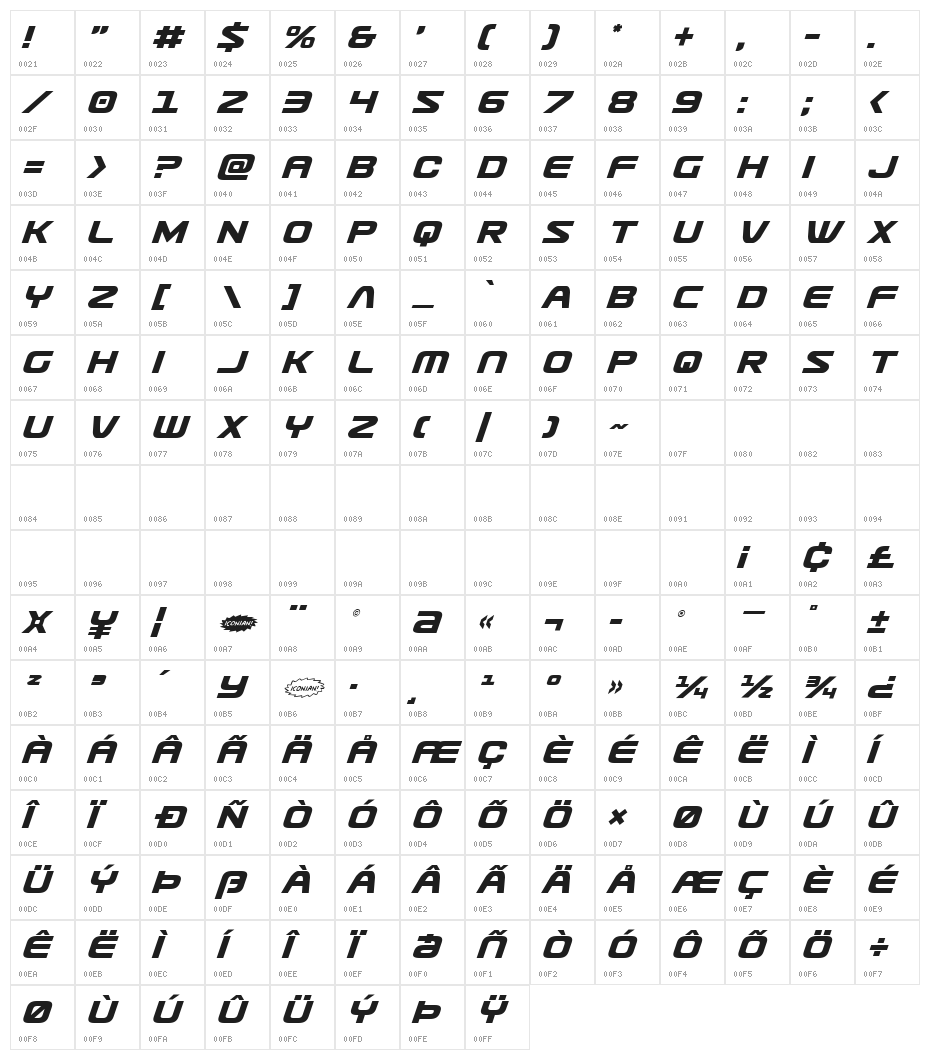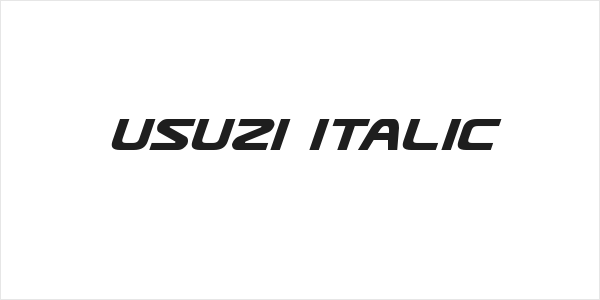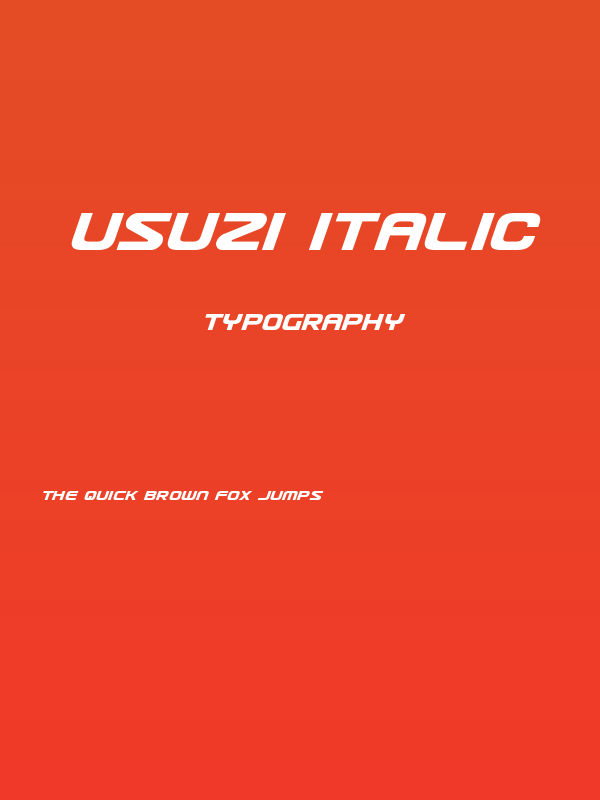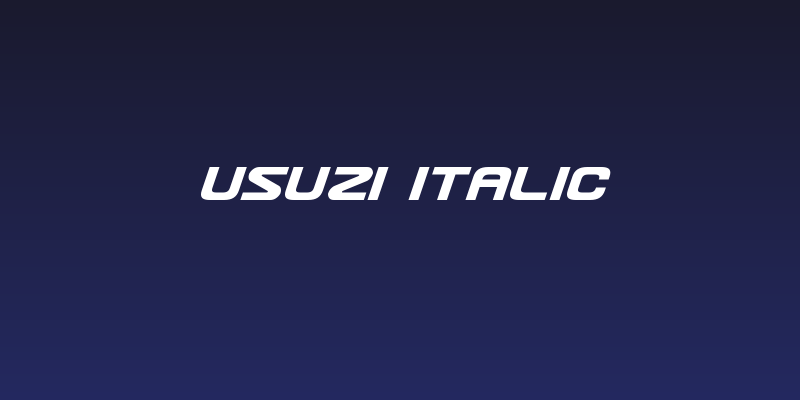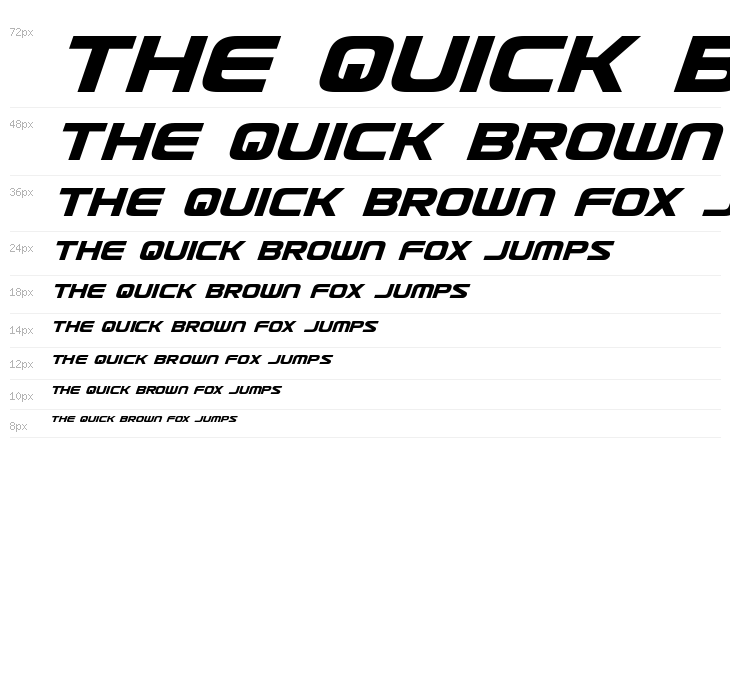
Usuzi Italic Font
Usuzi Italic Description
This font features a sleek, italicized design with a modern and dynamic appearance. The characters are slightly slanted, giving a sense of motion and speed. The strokes are consistent and bold, with a uniform thickness that maintains readability while adding a touch of elegance. The overall style is clean and contemporary, making it suitable for a variety of applications. The numerals and special characters are designed to match the alphabet's style, ensuring a cohesive look across all text elements.
| Use Case | Logos, Headlines, Branding |
| Proposed Projects | Ideal for branding, sports team logos, automotive designs, and dynamic advertising materials. |